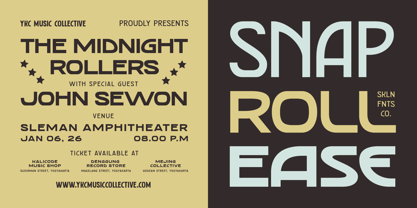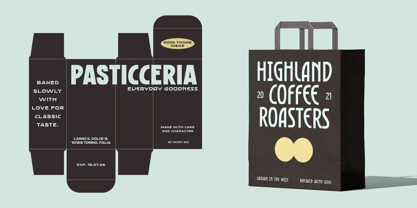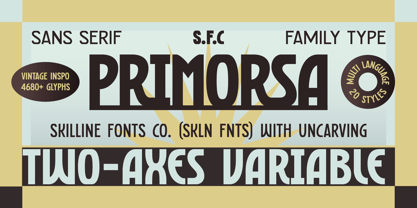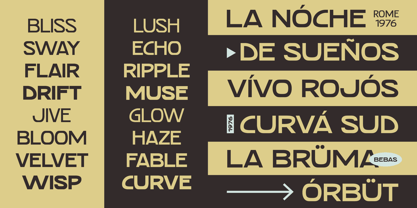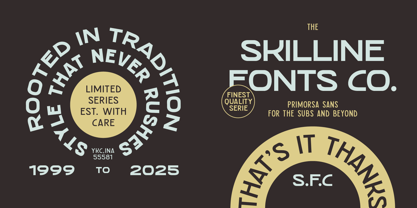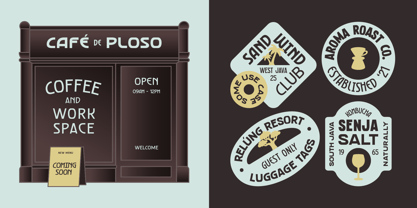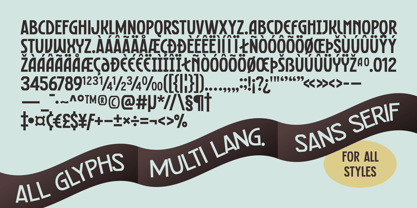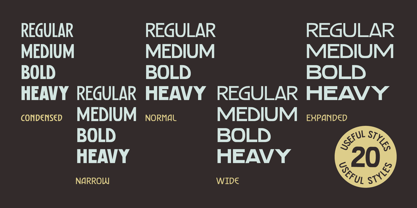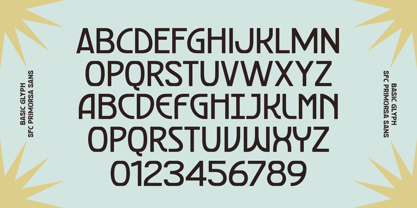
SFC Primorsa Sans
by Skilline Fonts Co.
The SFC Primorsa Sans Font Family was designed by Ahmad Nur Alfian and published by Skilline Fonts Co.. SFC Primorsa Sans contains 20 styles and family package options. More about this family
SFC Primorsa is a modern sans serif variable family with a confident, vintage-inspired character. Designed as a complete font system, it features clean geometry, smooth curves, and strong letterforms for impactful visual communication. With five widths, Condensed, Narrow, Normal, Wide, and Expanded and four weights, Primorsa offers 20 versatile styles for flexible layouts and consistent branding across print and digital media. It performs seamlessly in logos, editorial, posters, packaging, signage, and apparel, delivering clarity, personality, and professional strength.
Designers: Ahmad Nur Alfian
Foundry: Skilline Fonts Co.
Skilline Fonts Co. is the type foundry of Skilline Design Co., a Yogyakarta-based creative studio specializing in vintage-inspired typography and visual branding. Known for its line-based illustrations, badge-style graphics, and expressive lettering, the foundry creates fonts that capture the warmth of heritage design while maintaining modern usability. Each typeface is carefully crafted to bring character, authenticity, and timeless appeal to branding, packaging, signage, apparel, editorial projects, and digital media. Drawing inspiration from classic Americana, rustic craftsmanship, retro advertising, and traditional print culture, Skilline Fonts Co. develops distinctive font families that help designers create memorable and impactful visual identities.